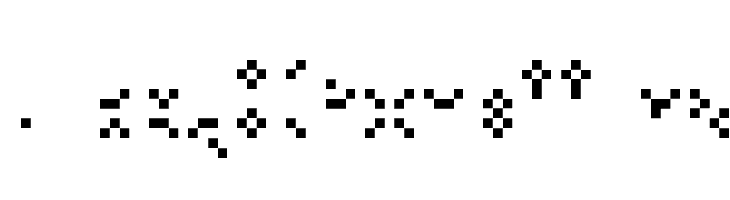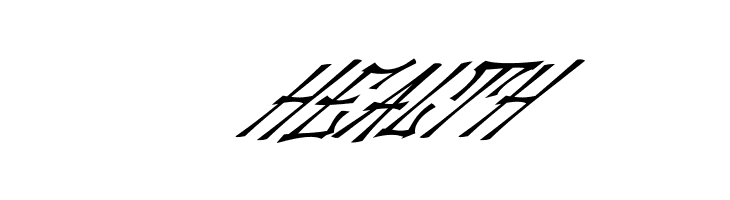
A bold, geometric font with modern, angular design.
A playful, handwritten font with tall, narrow, and slightly slanted letters.
A futuristic, geometric font with bold, block-like letterforms and sharp angles.
A playful, handwritten font with a casual and friendly appearance.
A bold, playful outline font with a modern yet retro aesthetic.
A bold, playful handwritten font with dynamic strokes.
A playful and elegant script font with fluid, cursive strokes.
An elegant script font with flowing, cursive letters and graceful curves.
A bold, extended, and geometric font with a futuristic style.